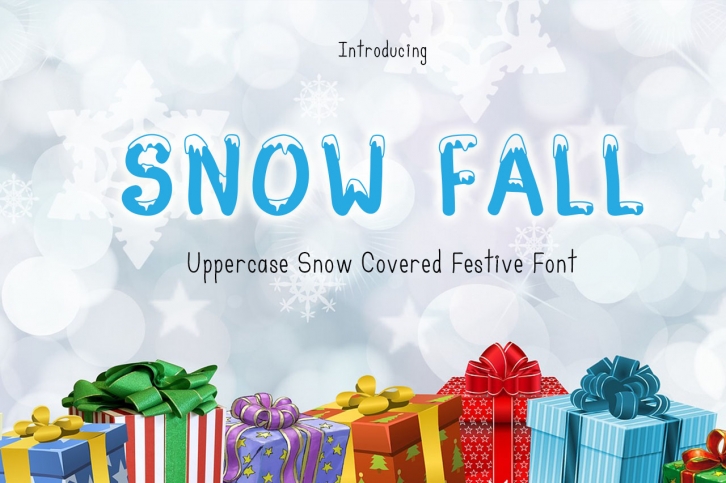
Snow Fall - Snow Covered Font Download
Snow Fall is a trendy and unique font with an authentic style. It was designed by Karen J - Graphic Design and it's a great choice for creative people who need such a font. It was released on July 26, 2019 and the file size is 18.94 MB. Snow Fall will add an organic vibe to any design idea!